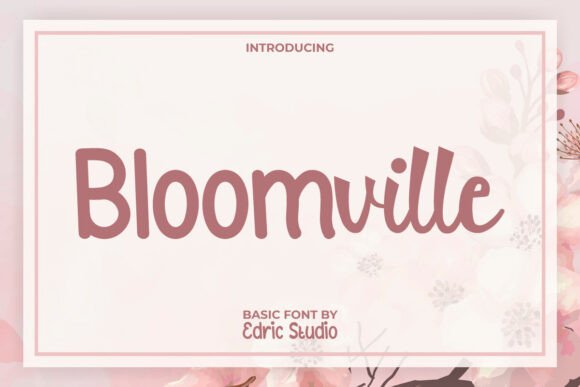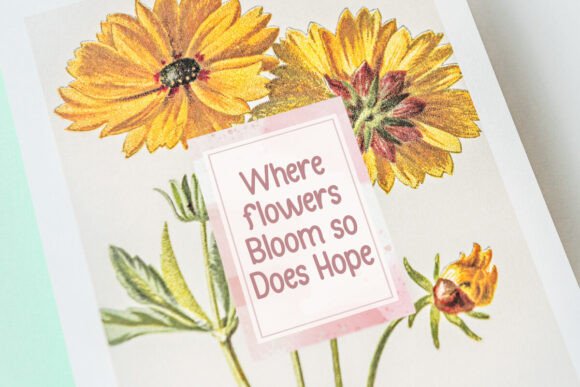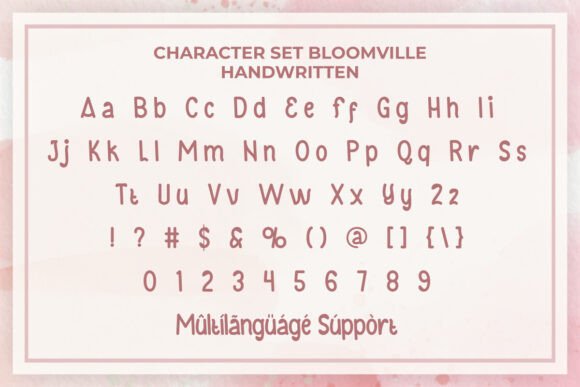
About the Bloomville Font
We are excited to introduce Bloomville Font, a must-have typeface for any serious designer. Bloomville Font is a cute kids’ handwriting and casual calligraphic font, resulting in these two looks in one font. It will add a stylish touch to whatever your design is, including invitation flyers, apps, billboards, blogs, brochures, covers, flyers, headers, logos, packaging design, posters, price labels, quotes, screen print, signage, stationery, stickers, titles, websites, etc.
Bloomville’s playful, hand-drawn aesthetic makes it ideal for children’s books, branding for playful products, or eye-catching headlines. It works exceptionally well in short, impactful text on packaging, posters, and social media graphics. However, its casual nature makes it less suitable for large blocks of body text or applications requiring high readability, such as UI elements or lengthy documents.
Pairing Bloomville effectively requires considering its informal charm. A clean sans-serif like Open Sans could provide a strong contrast and enhance readability in supporting text. For a more sophisticated look, consider a classic serif like Garamond for headings or subheadings that need a touch of elegance. Avoid pairing it with overly decorative fonts which could clash with its playful but slightly refined character.
Bloomville’s overall personality is best described as cheerful and approachable, yet stylishly crafted. It’s the perfect choice for brands targeting a young, optimistic audience or projects emphasizing a friendly, handmade feel.